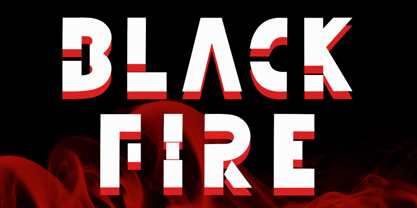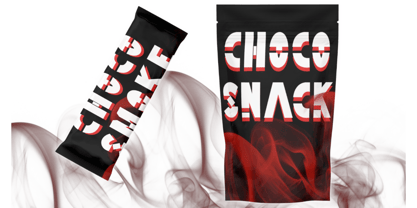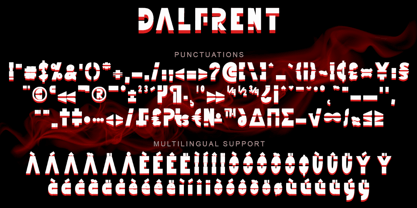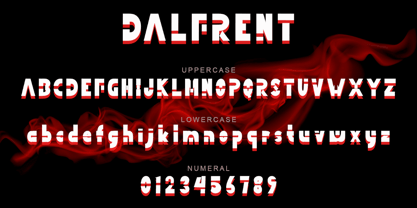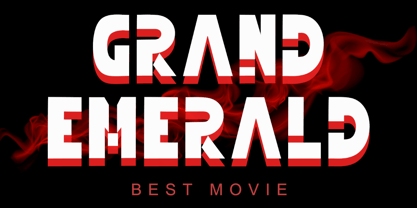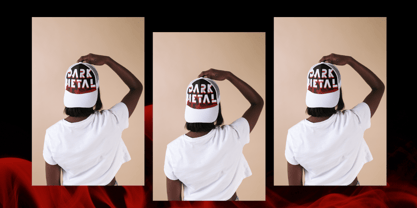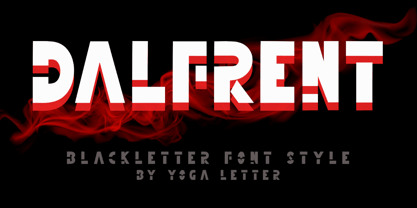
Dalfrent
by Yoga Letter
The Dalfrent Font Family was designed by Isroni Yoga Prasetya and published by Yoga Letter. Dalfrent contains 1 styles. More about this family
"Dalfrent" is a unique and elegant blackletter font. This font is equipped with uppercase, lowercase, numerals, punctuations and multilingual support. Very suitable for business branding, halloween, horror, print, banner, poster, branding, sticker, logo, summer, christmas and others.
Designers: Isroni Yoga Prasetya
Foundry: Yoga Letter